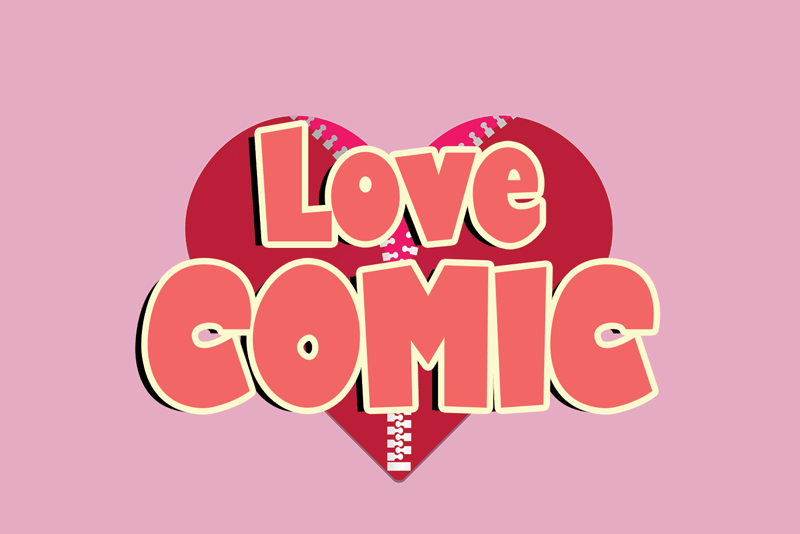
Preview and download Love Comic Font. Created by Erik Luluk in Fancy Cartoon styles with Free for personal use license.
Love Comic is a bold and cool display font that looks modern and friendly. Add this chunky font to your creative ideas, and notice how it makes them stand out! Attention : Love Comic handwriting Font is prohibited to use this font for commercial purposes or for profit without the permission of the author/admin, without being known to use this font without permission, will be subject to sanctions 5x the specified price. This font is used only for demos (Demo license) If you want to use this font for commercial use please contact email: erikluluk0@gmail.com or click the link below: https://www.creativefabrica.com/product/love-comic-2/ref/745146/ If you want to see more other fonts, please click: https://www.creativefabrica.com/designer/erik-studio/ref/745146/ thanks. |